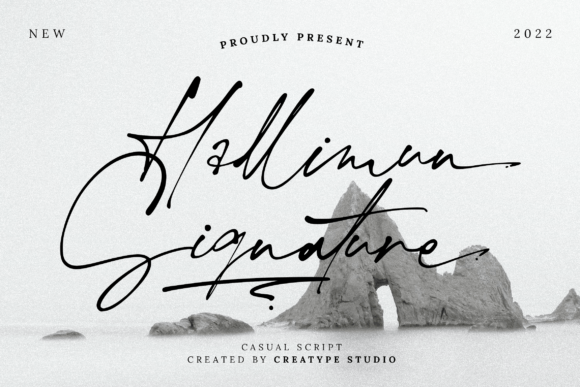
Unleash the Charm of Handwritten Design
Have you ever struggled to convey the perfect blend of vintage charm and sophistication in your design projects? You’re not alone. Many designers face this challenge when trying to create unique and memorable branding, logos, and advertisements. But what if you could tap into the timeless beauty of handwritten script, without the limitations of traditional calligraphy?
Enter the Hallimun Signature Font, a stylish typeface that captures the essence of handwritten elegance. With its natural, flowing lines and subtle flair, this font is perfect for adding a touch of personality to your design projects. Whether you’re creating a wedding invitation, a social media post, or a product label, the Hallimun Signature Font is sure to make your design stand out. And with its PUA-encoded features, you’ll have access to a world of creative possibilities at your fingertips.
Hallimun Signature Font Key Features
- Font Style: A unique, modern script font designed to add a touch of elegance and sophistication to any document or design.
- Unique Characteristics: Features a flowing, cursive design with subtle variations in letterform and spacing to create a dynamic, handwritten feel.
Hallimun Signature Font Review
I was excited to dive into the Hallimun Signature Font, and I’m glad I did. This font has some great features that make it a solid choice for designers.
- Clean and elegant design: The Hallimun Signature Font has a sleek and sophisticated look that’s perfect for luxury brands or high-end products.
- High-quality glyphs: The font includes a wide range of glyphs, from standard letters and numbers to special characters and symbols.
- Great for headings: The font’s bold and eye-catching design makes it ideal for headings and titles.
- May be too bold: While the font’s bold design is a strength in some cases, it can also be overwhelming for smaller text or more subtle designs.
- Limited support for non-Latin scripts: The font only includes support for Latin-based languages, which may limit its use in international designs.
- No italic or oblique styles: The font only comes in a single weight, which can make it less versatile for designers who like to experiment with different font styles.
Overall, I think the Hallimun Signature Font is a solid choice for designers who need a clean and elegant font for luxury or high-end projects. However, it may not be the best fit for more subtle or international designs.
Practical Application Guide for Hallimun Signature Font
Use Hallimun Signature Font to create eye-catching titles, headings, and logos. Experiment with different font sizes and colors to add visual interest. For best results, pair Hallimun Signature Font with a clean and simple design aesthetic.
Use Hallimun Signature Font for branding, marketing materials, and digital products. It’s particularly well-suited for creative industries, such as graphic design, photography, and writing.
Alternatives to Hallimun Signature Font
The Hallimun Signature Font is a unique and elegant script font used in various design projects. However, for designers looking for alternatives, here are a few options.
Carolyna Pro is a modern and sophisticated script font that can be used for various design projects, including invitations, logos, and branding materials. It has a more refined and elegant feel compared to the Hallimun Signature Font, making it suitable for high-end designs. Use Carolyna Pro for luxury brands, weddings, and special events.